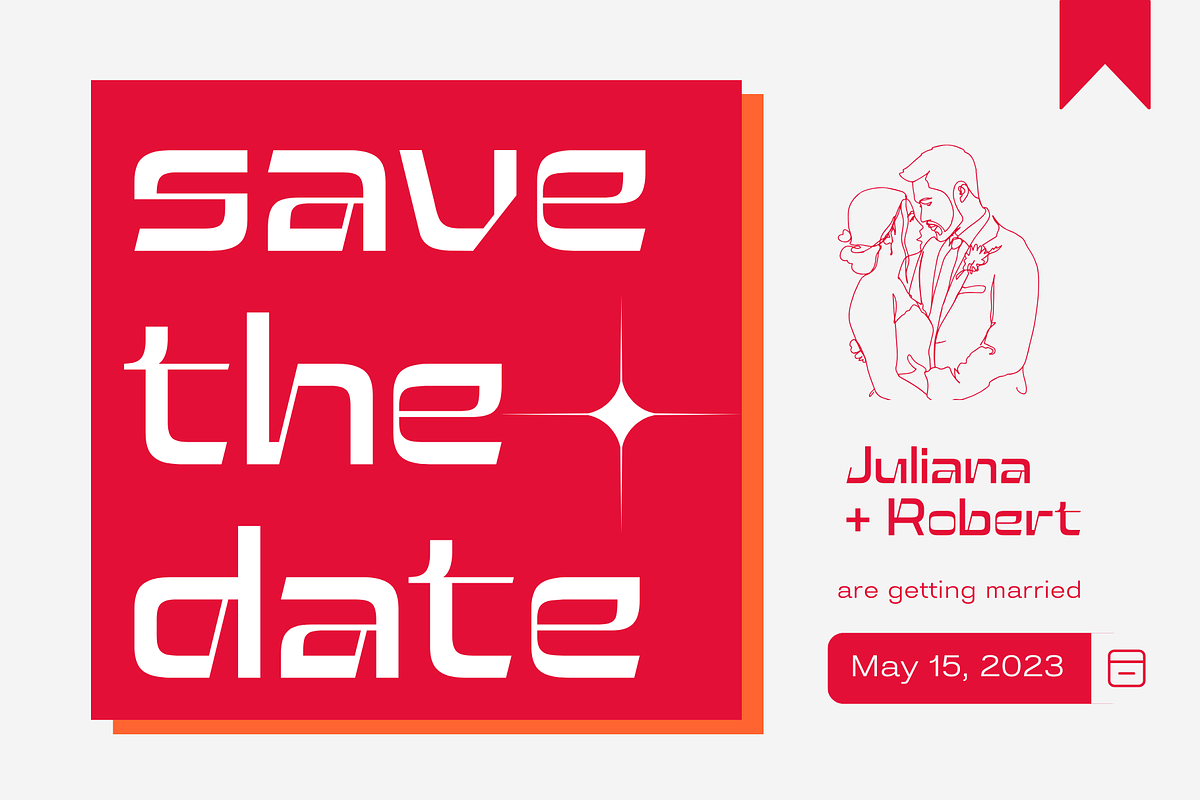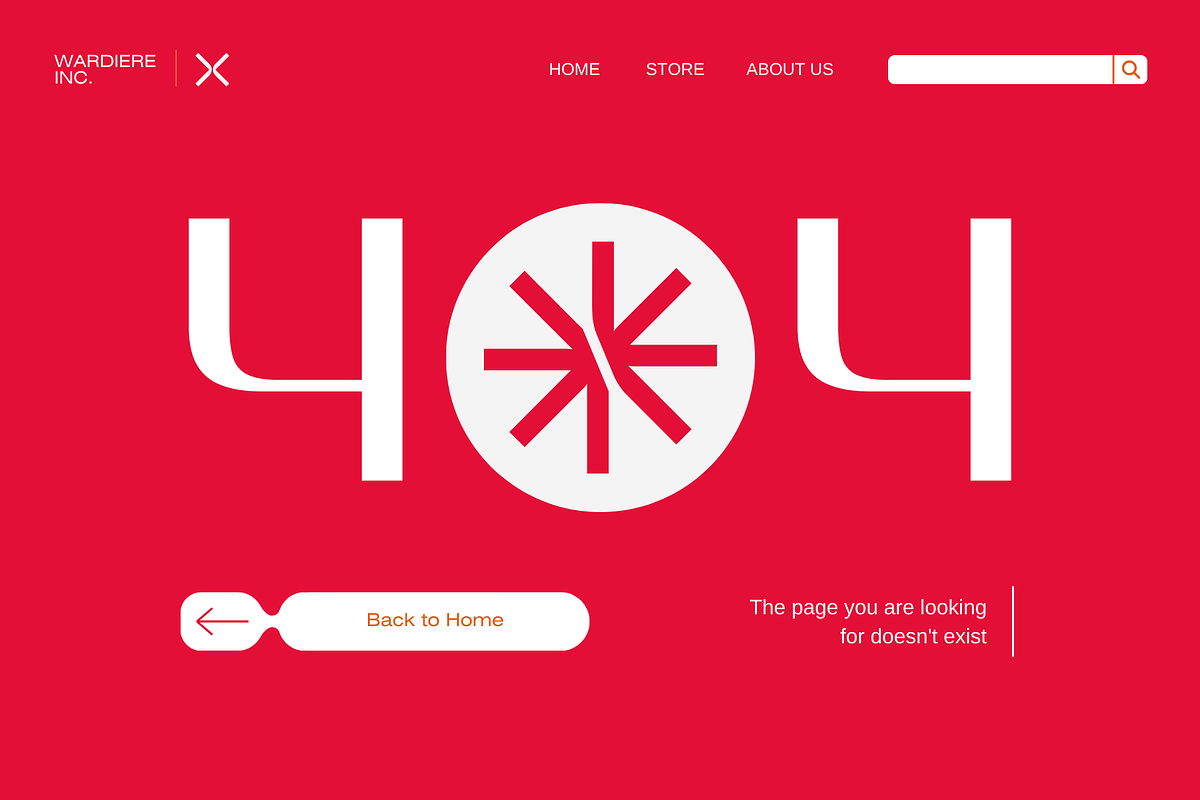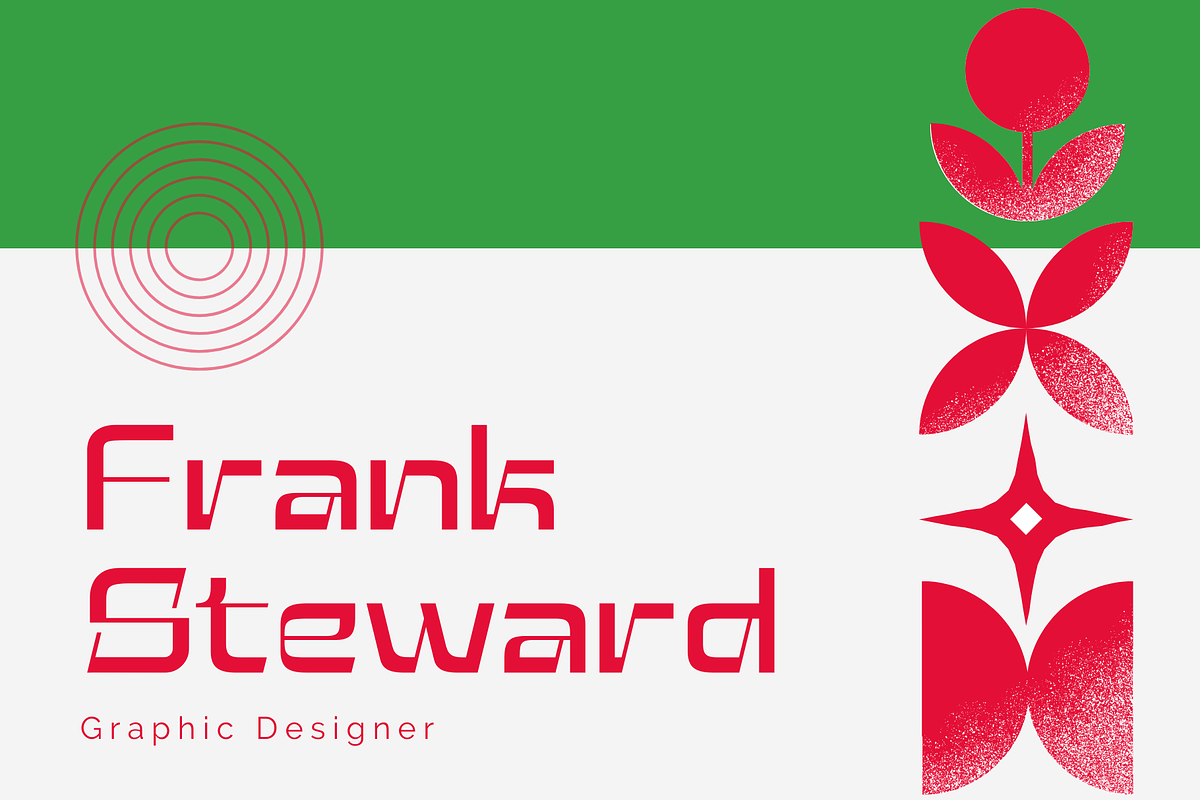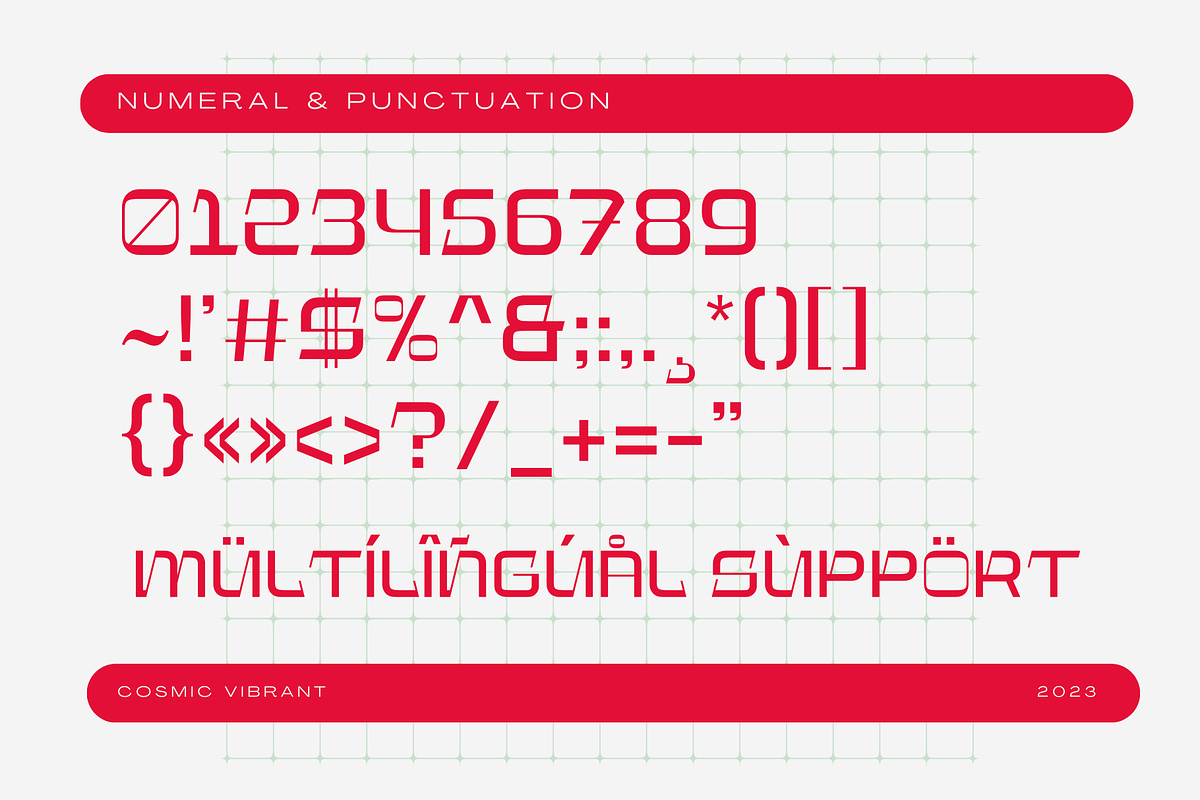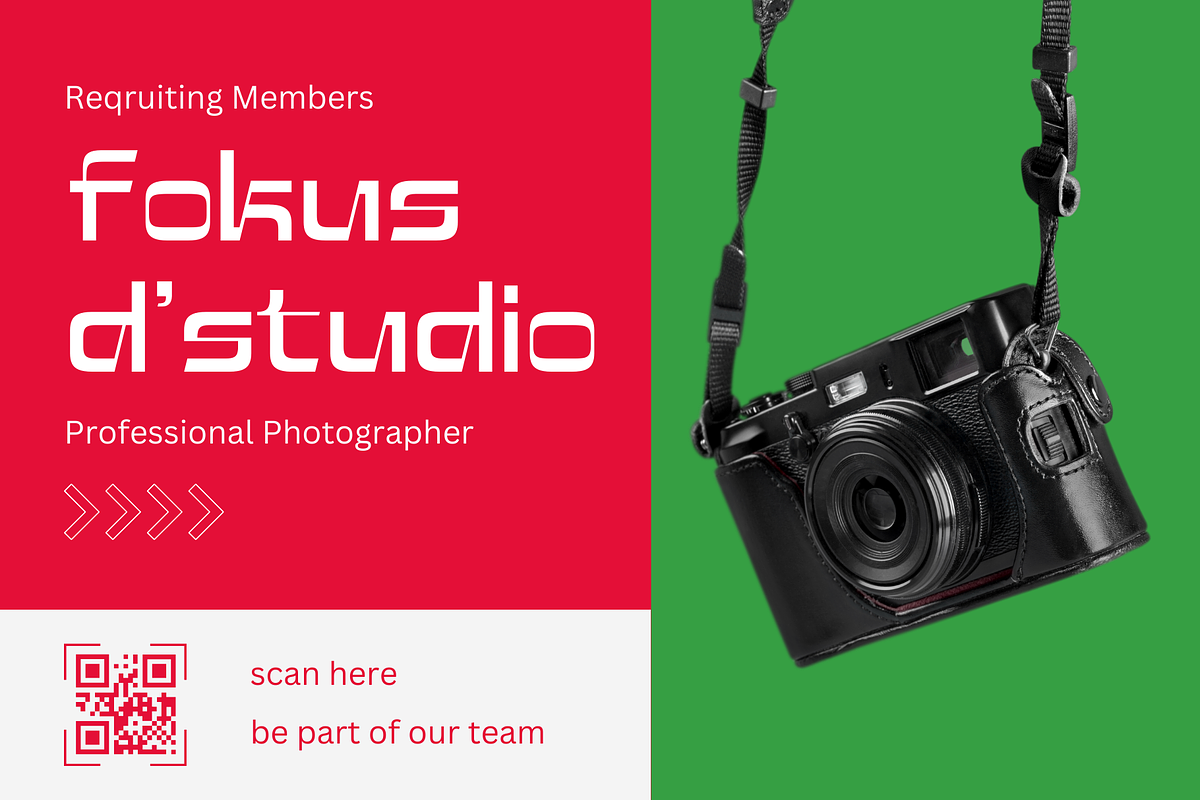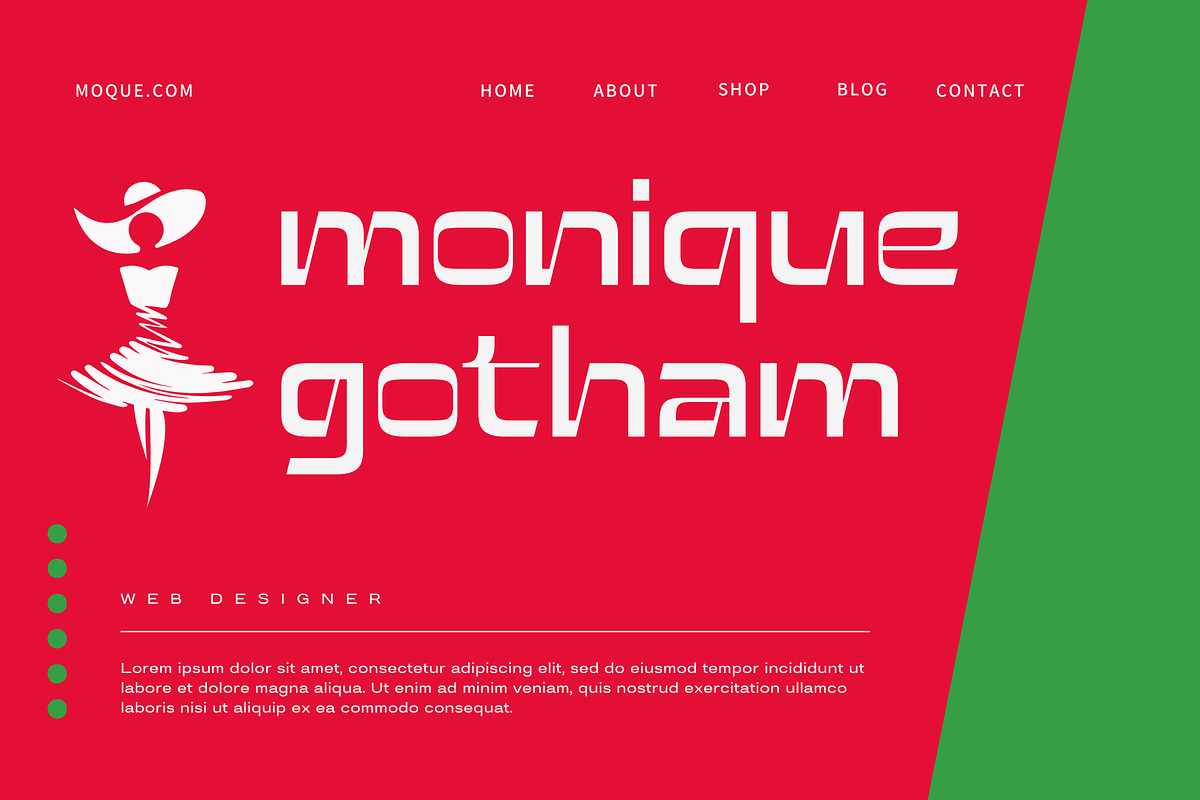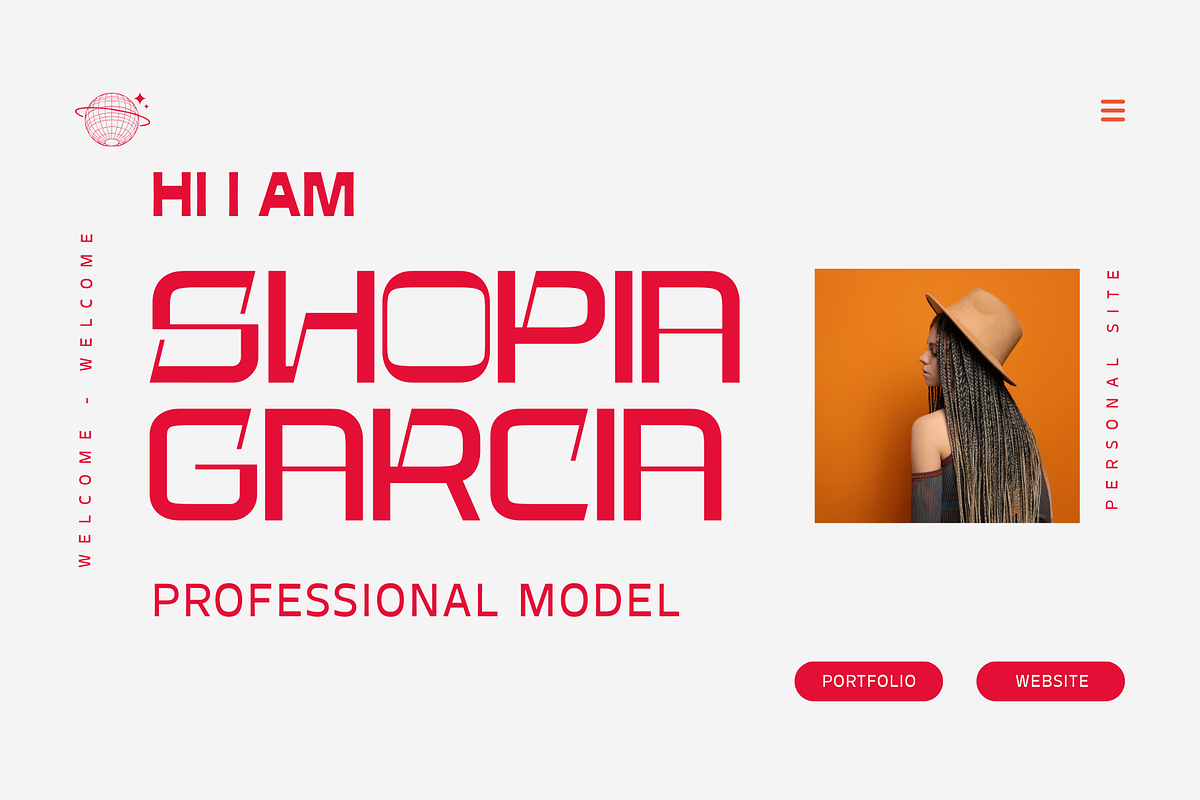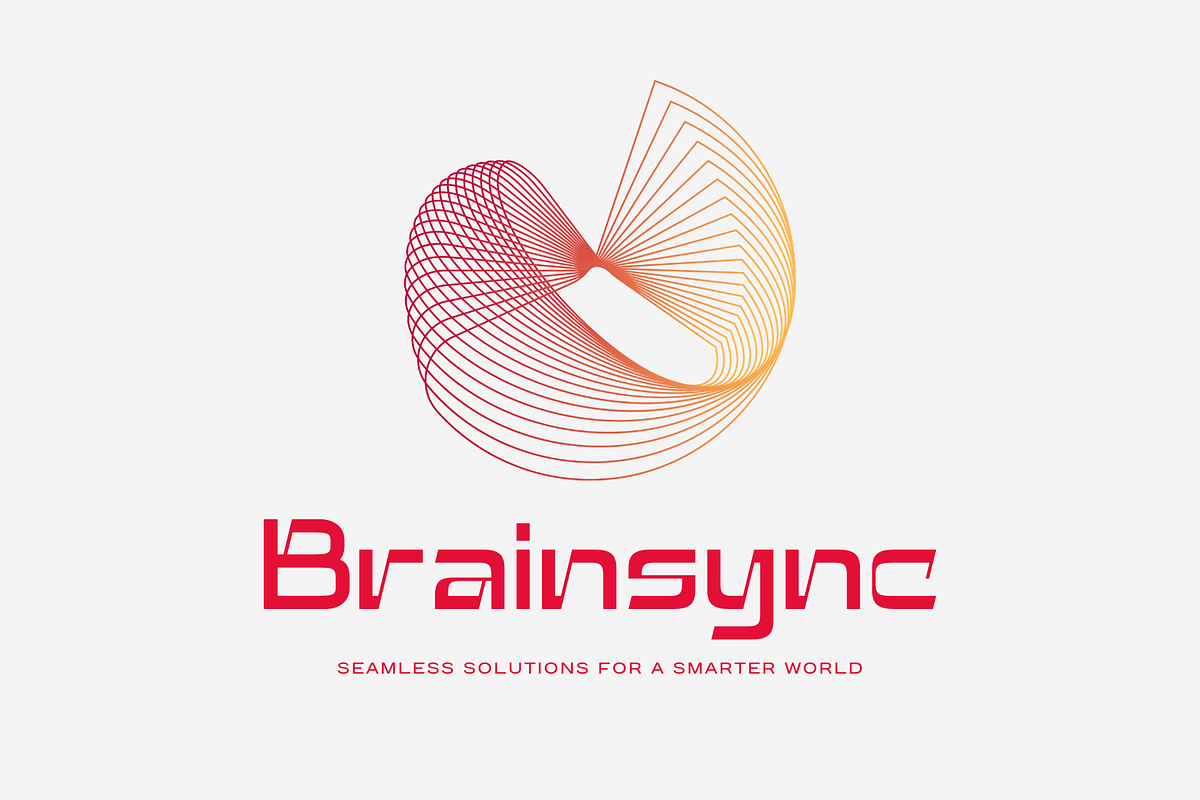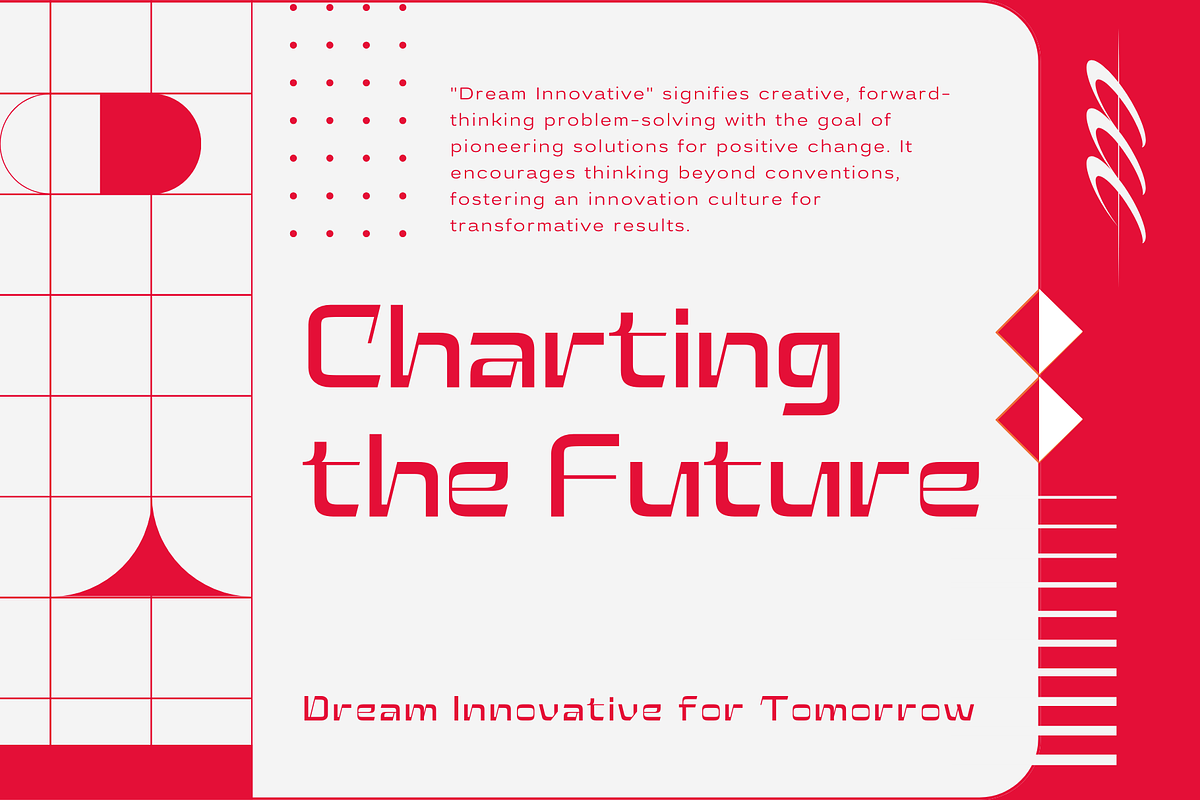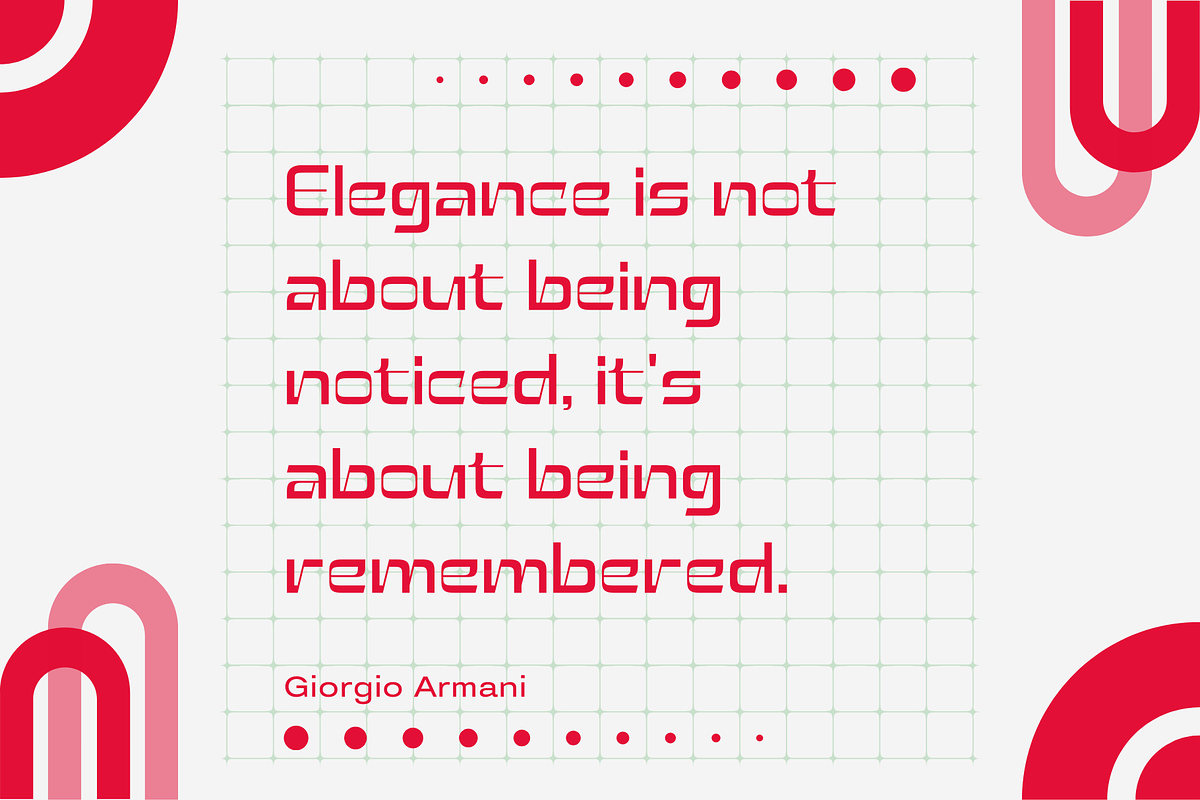
Cosmic Vibrant - Futuristic Typeface
"Introducing 'Cosmic Vibrant,' a futuristic display typeface that propels your designs into the cosmos of innovation. With its sleek lines and dynamic design, this font embodies the essence of advanced technology and forward-thinking aesthetics. Whether you're creating for sci-fi themes, space exploration, or any project that demands a futuristic look, 'Cosmic Vibrant' adds a touch of high-tech sophistication to your designs."
- Uppercase and lowercase letters
- Multilingual, numerals, and punctuation